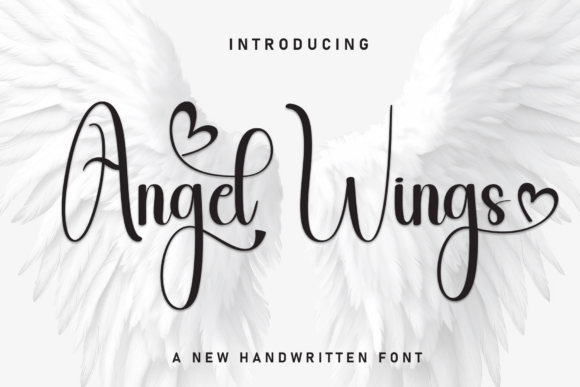
The Heavenly Charm of Angel Wings Font
Have you ever been in the middle of a design project, and suddenly, you just can’t seem to find the right font? I recall a particularly stressful experience while working on a wedding invitation project. My client wanted something sweet, friendly, and utterly charming. After hours of scouring through font libraries, I stumbled upon the delightful Angel Wings font. It was love at first sight! 💕
A Sweet and Friendly Handwritten Font
Angel Wings is a sweet and friendly handwritten font that adds a touch of whimsy to any design project. Its cute and fun vibe makes it ideal for writing wedding invitations, cards, or any other design that might need a fun touch! Whether you’re a designer, crafter, or creative hobbyist, this font is sure to bring a smile to your face.
• ✨ The playful, hand-crafted feel of Angel Wings adds a personal touch to any design.
• ✅ It’s incredibly versatile and works well for both digital and print projects.
• 💕 The font’s sweet and friendly vibe makes it perfect for projects that require a touch of warmth and personality.
While Angel Wings is an amazing font, there are a few things to keep in mind:
• ⚠️ The font’s playful nature might not make it the best choice for very formal or corporate projects.
• 🤔 Some of the letters have a slightly irregular baseline, which might affect the font’s readability in certain contexts.
The Designer Inspiration Behind Angel Wings
While the true story behind Angel Wings remains a mystery, it’s easy to imagine that the designer was inspired by the whimsical world of children’s illustrations. Perhaps they wanted to create a font that would bring a smile to people’s faces, or evoke a sense of wonder and magic.
Q: Can I use Angel Wings for my wedding invitations?
A: Absolutely! Angel Wings is an excellent choice for wedding invitations, as it adds a touch of sweetness and romance to your design.
Q: Is Angel Wings a difficult font to read?
A: While Angel Wings has a playful, handwritten feel, it’s still relatively easy to read. However, it’s essential to consider the font size, color, and contrast to ensure your text is legible.